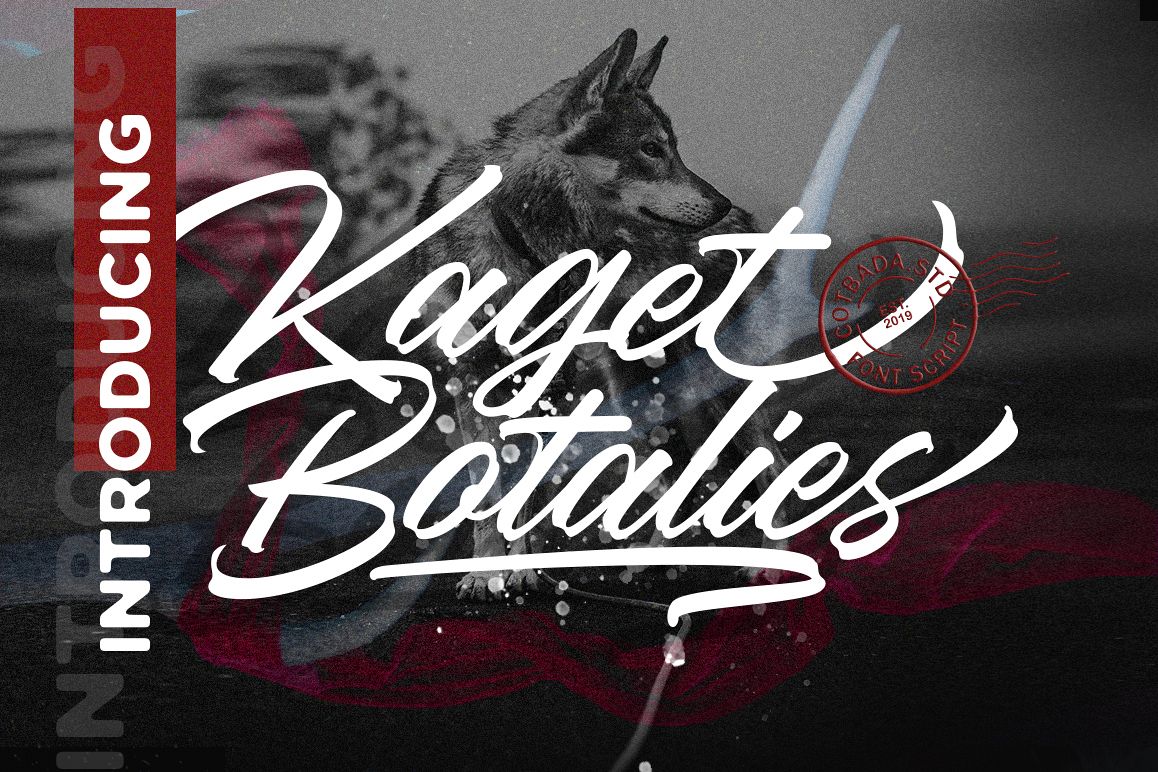
Kaget Botalies Script
Kaget Botalies Script Font is a unique, cool and modern handwritten font. It's hand look style makes it perfect for use in all your design projects be it logos, labels, packaging design, blog headlines, Poster. etc